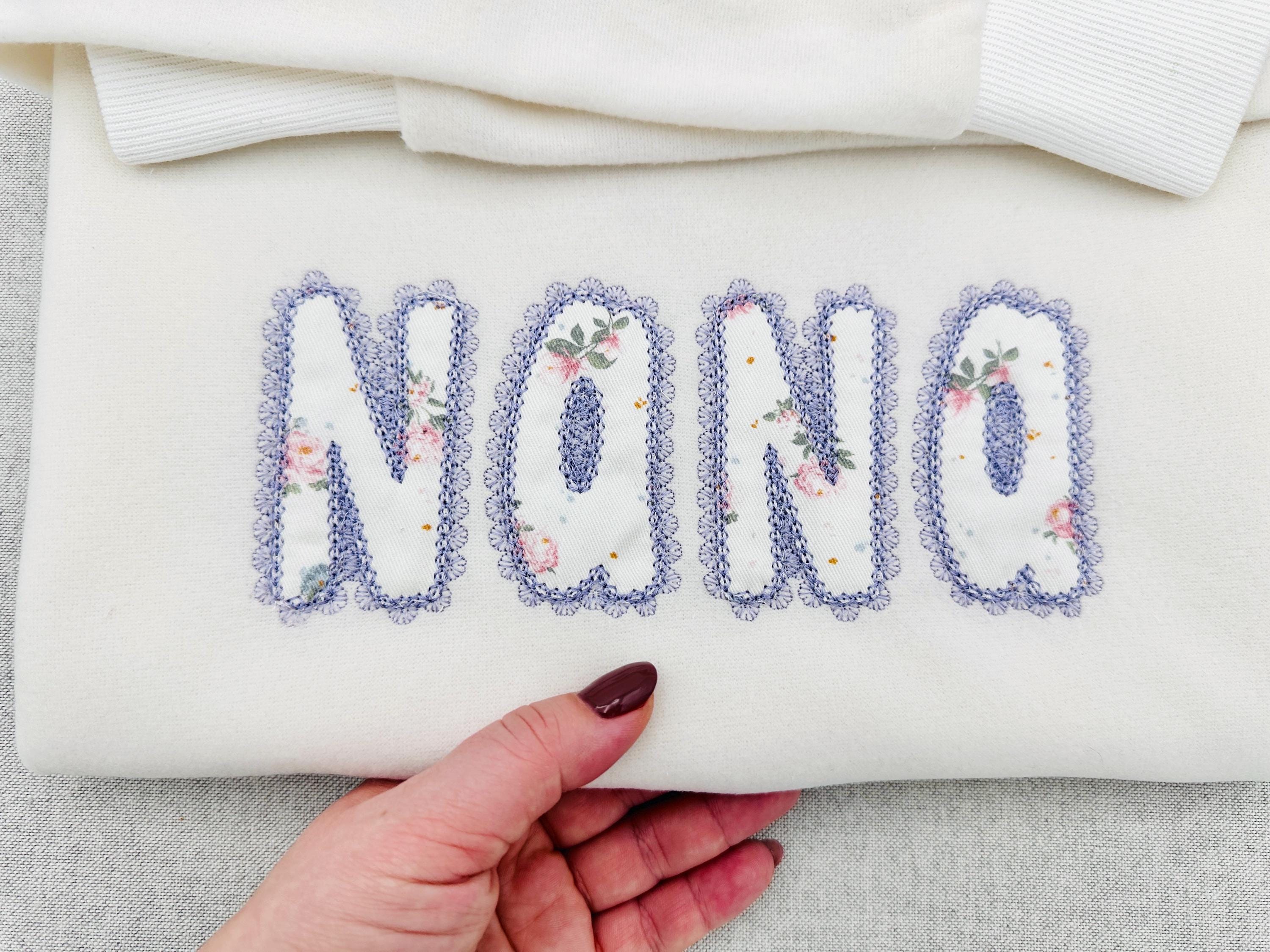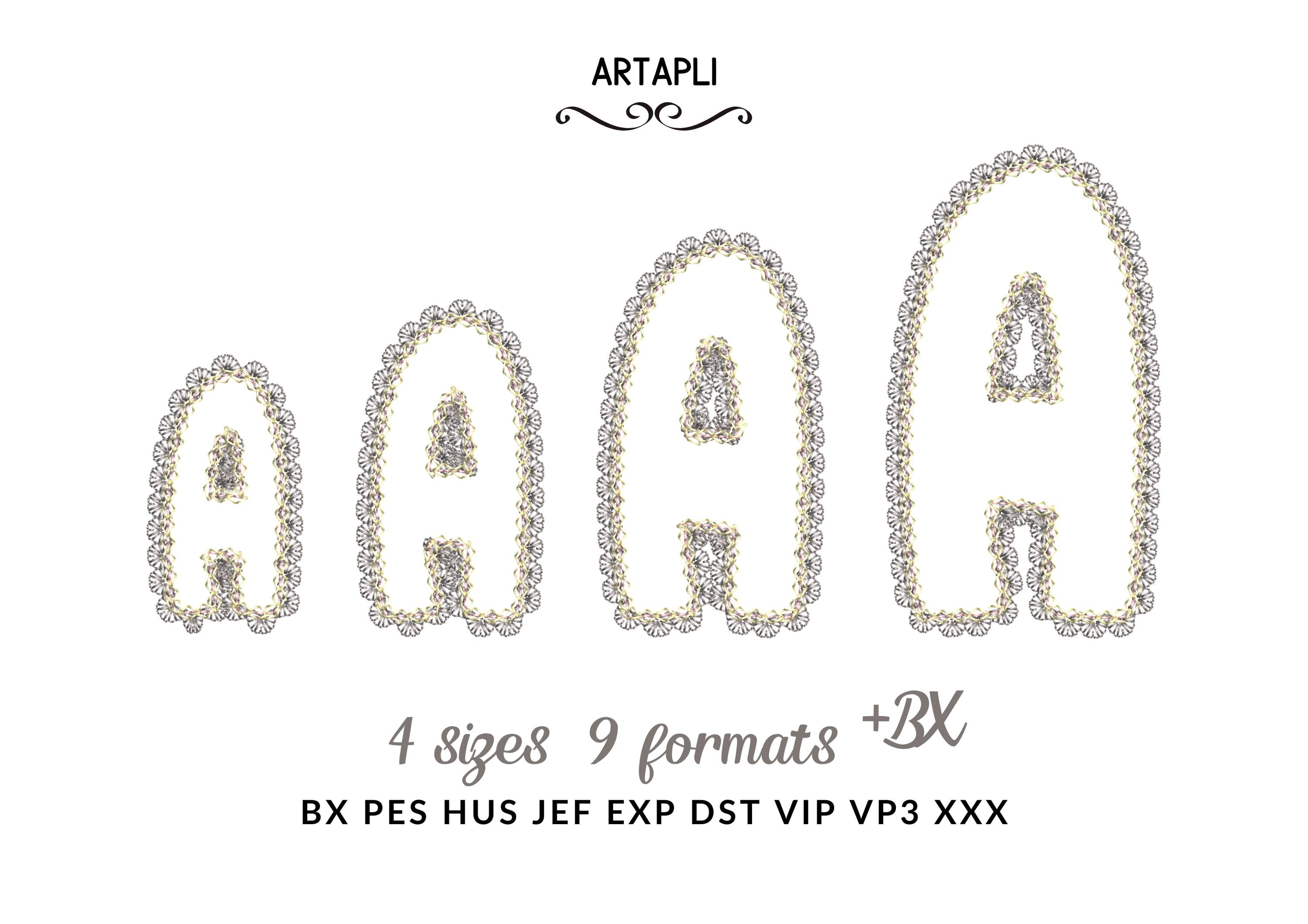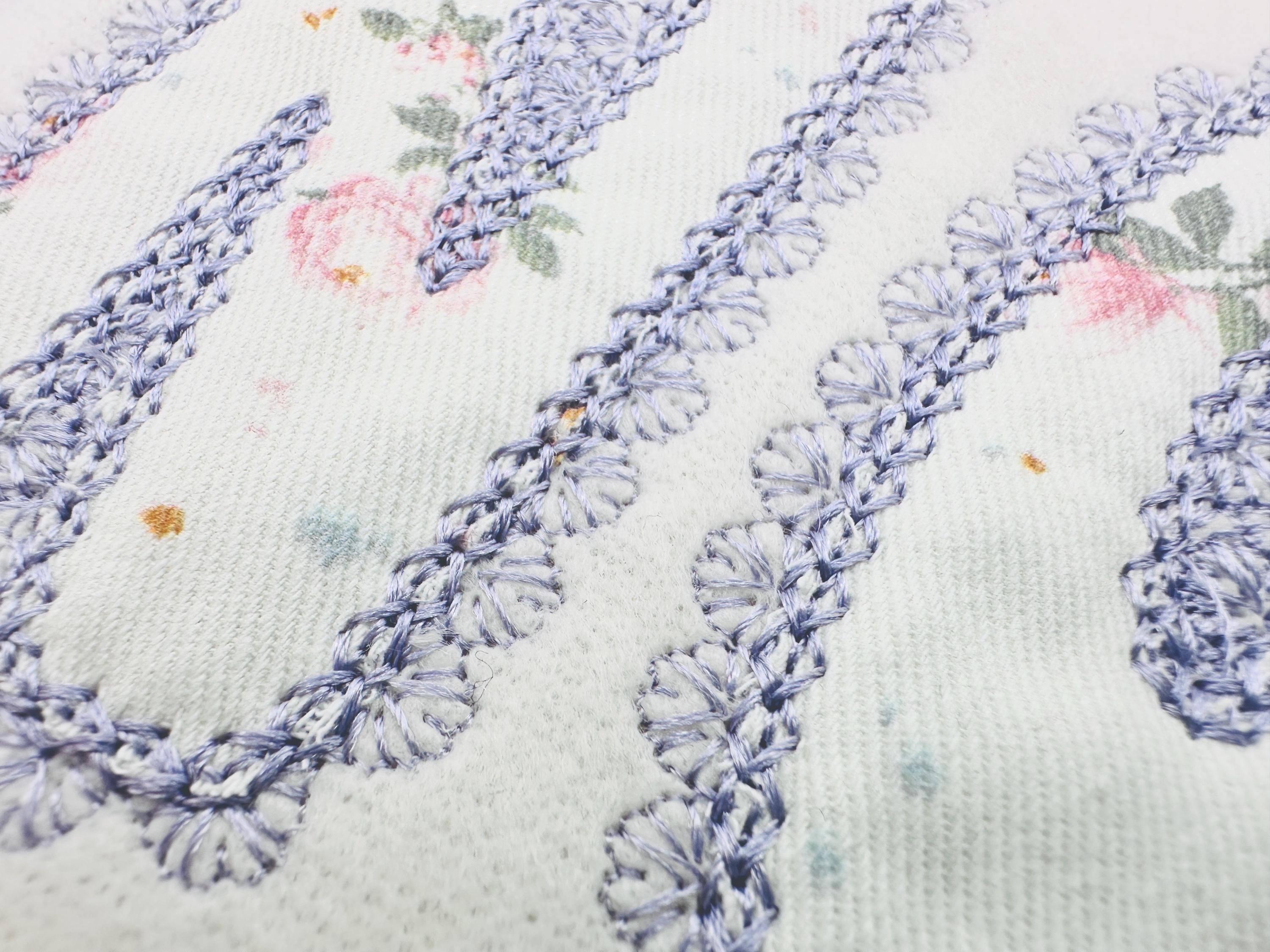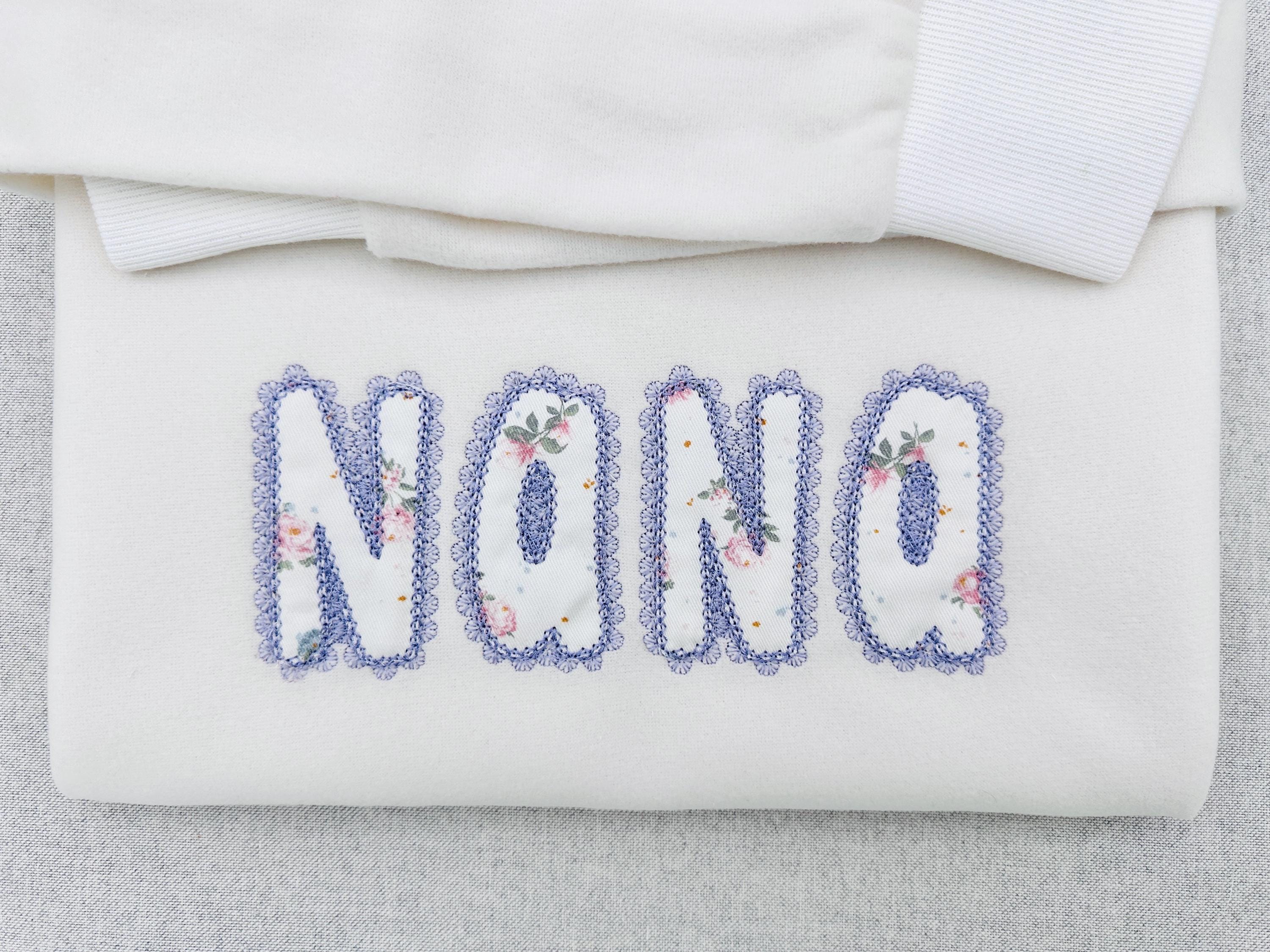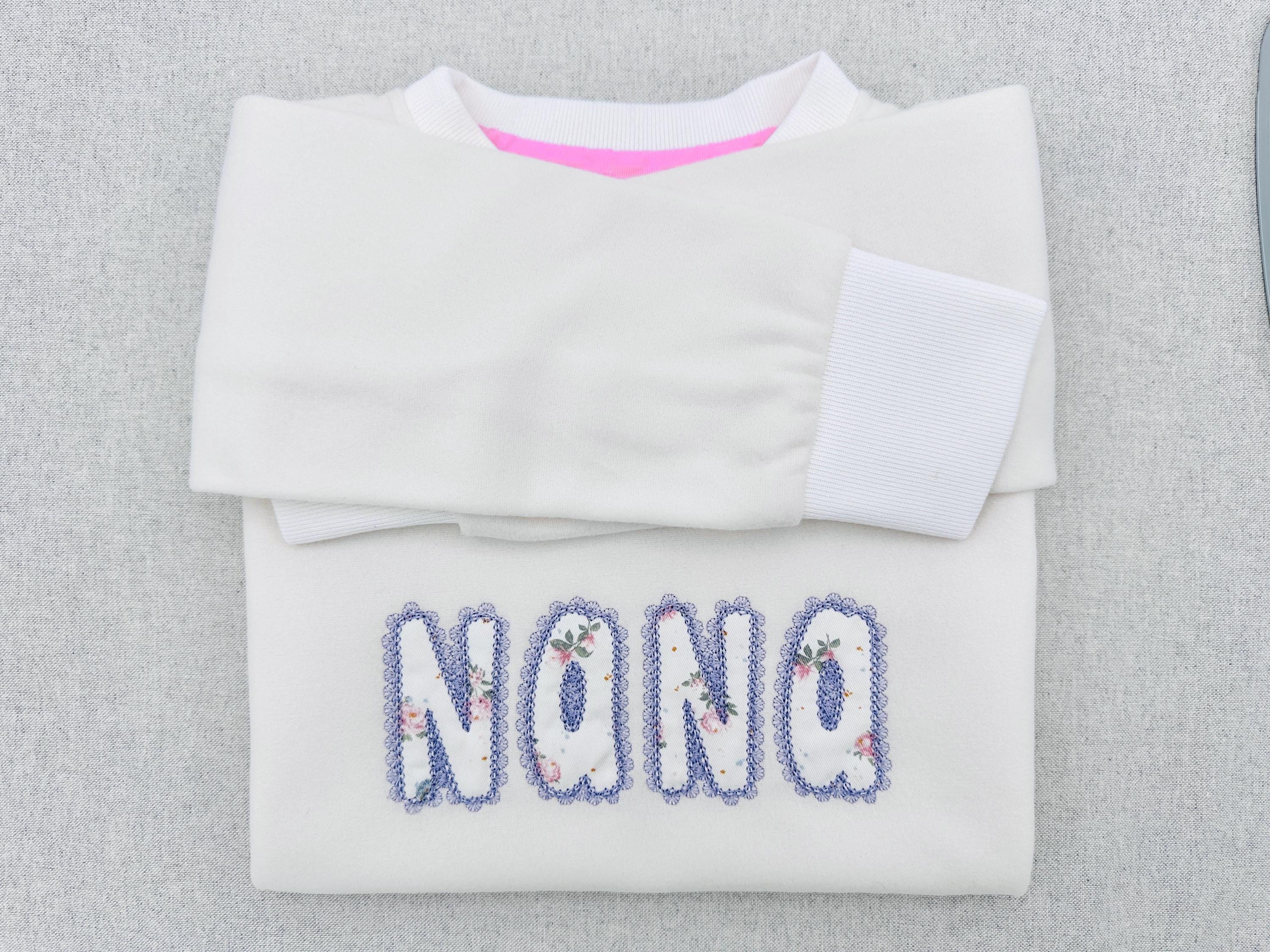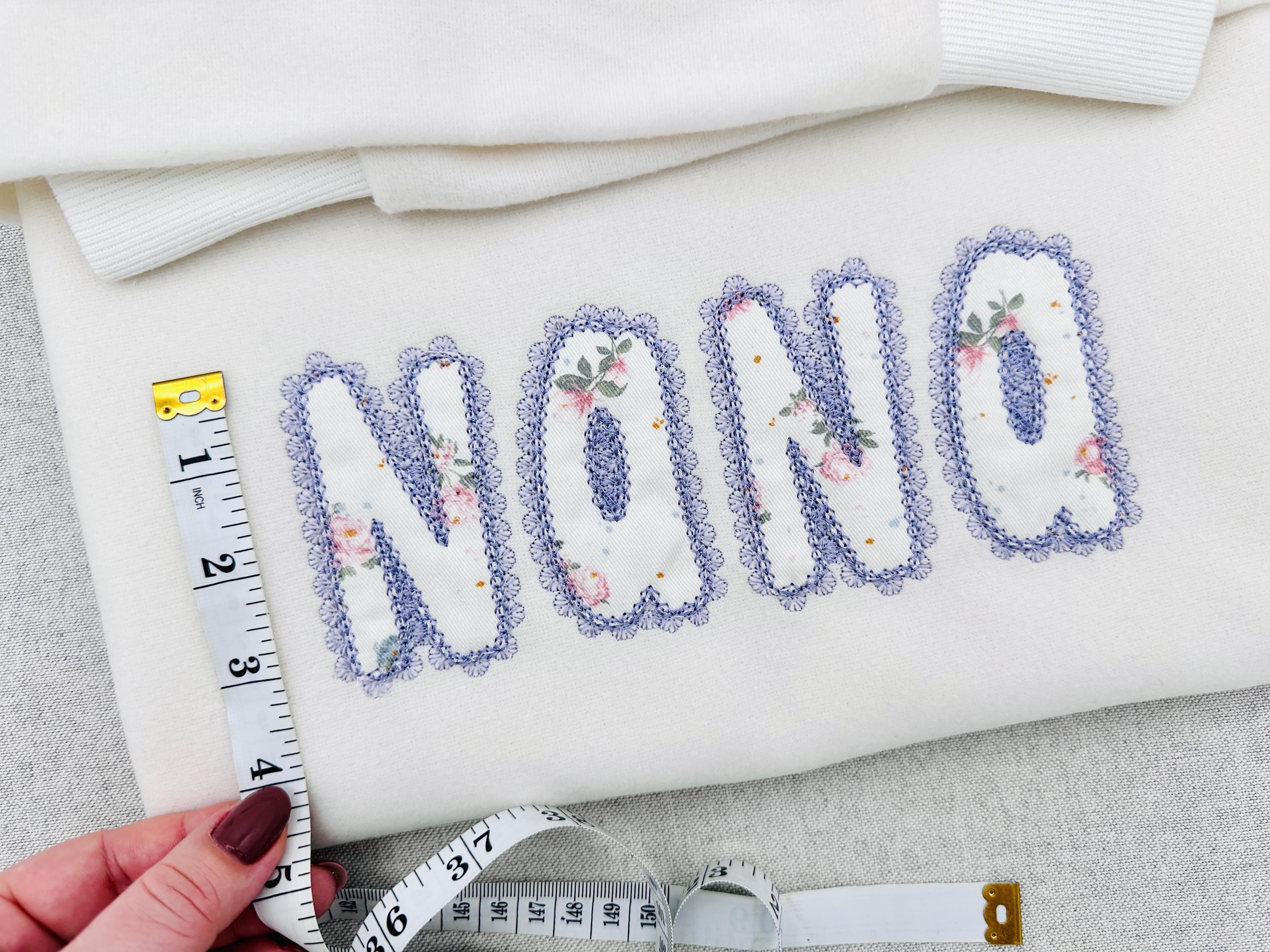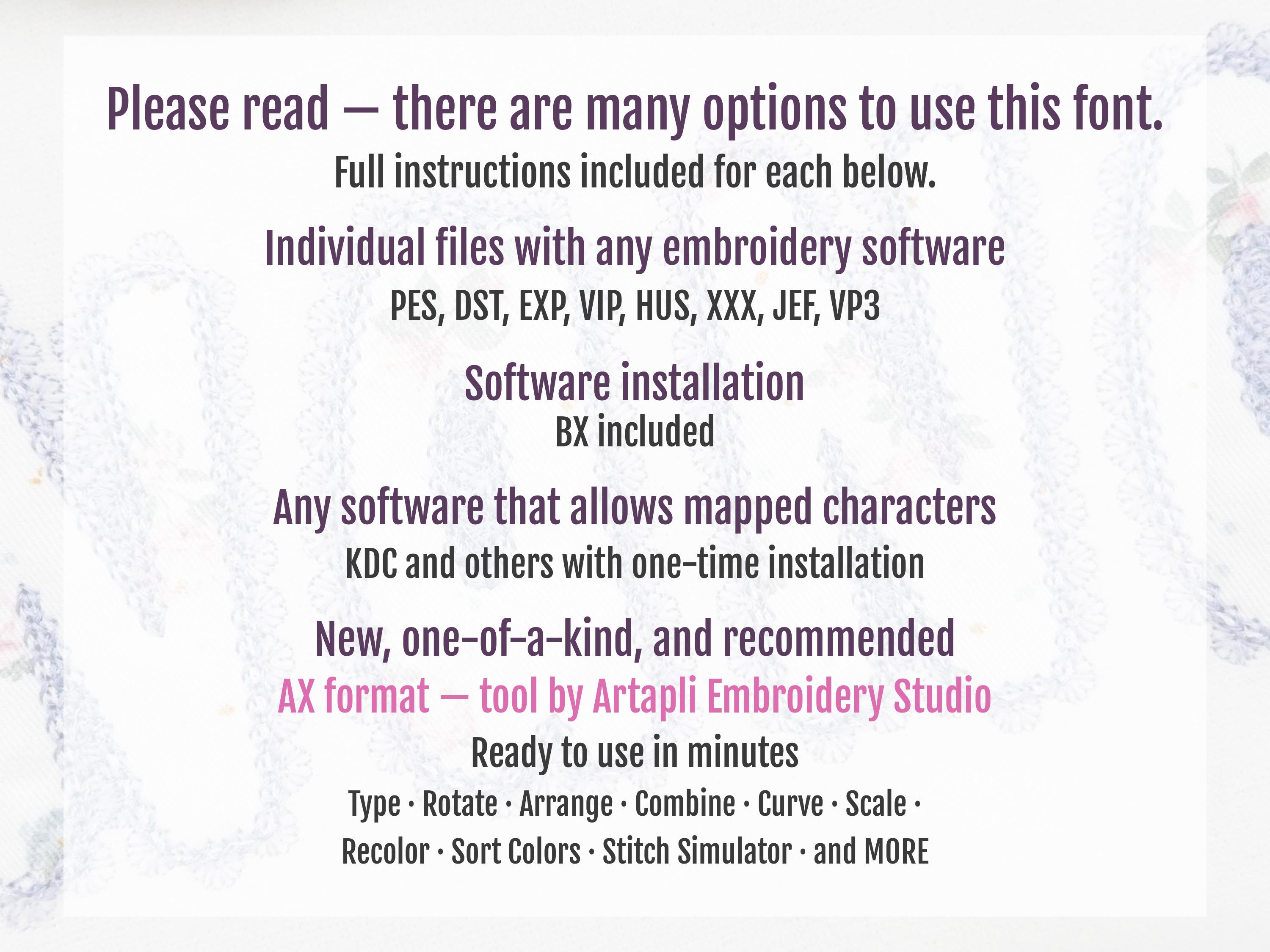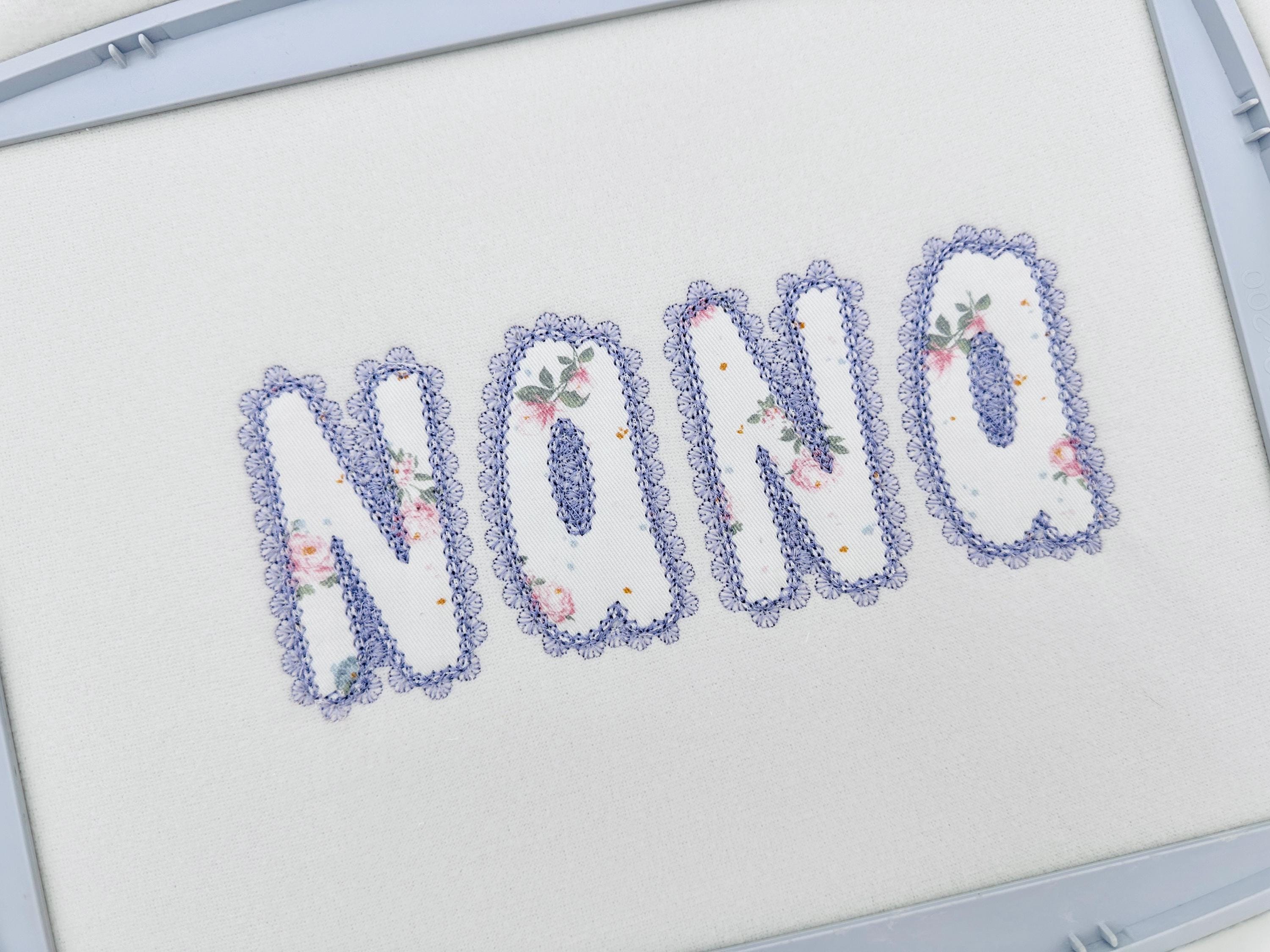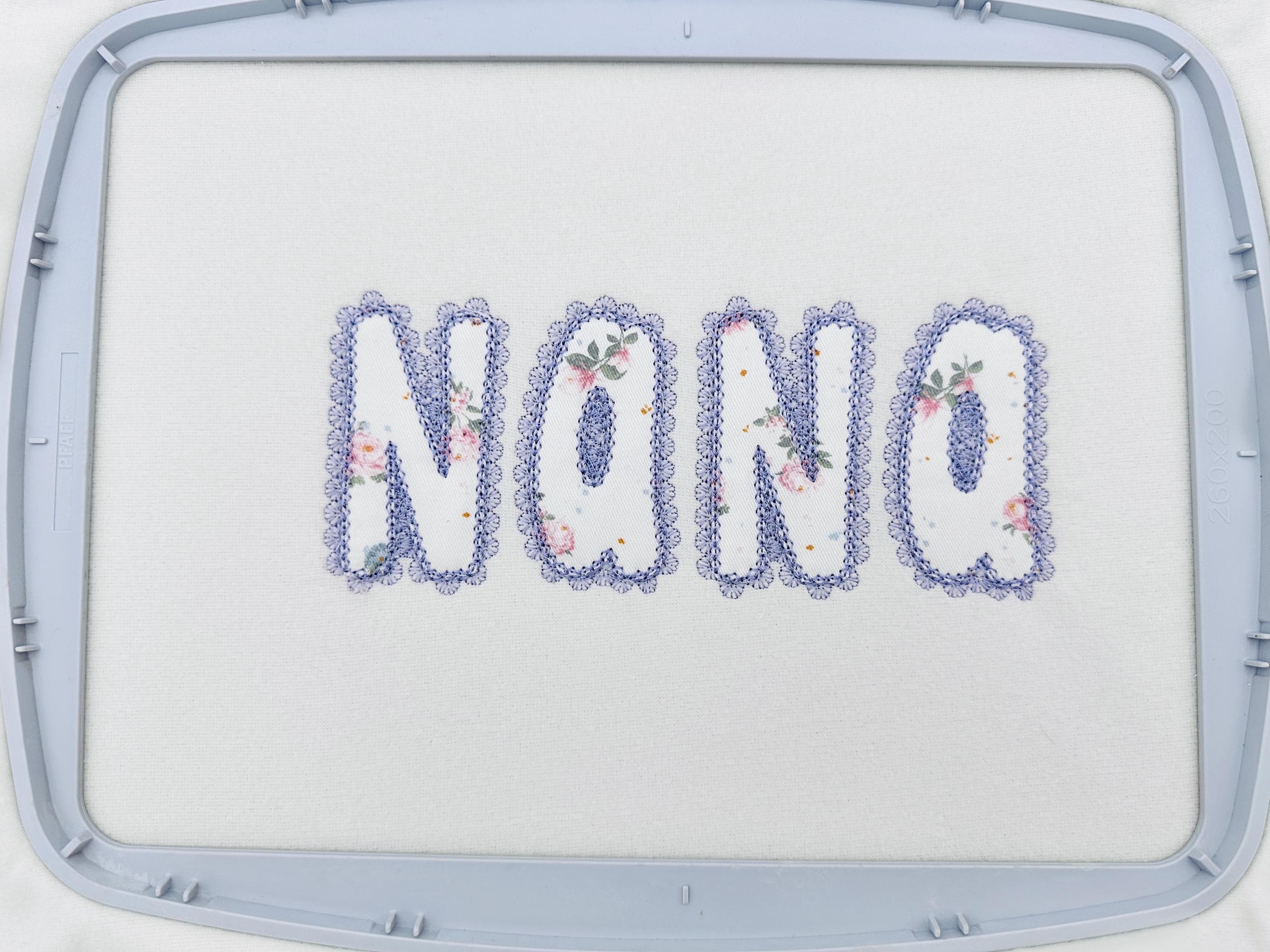
Lace Edge applique Alphabet Font lace trim effect letters, Monogram kids girls machine embroidery designs sizes 2.5 up to 4.3 in BX
Lace edge is a part of the design. The background fabric looks through. Stunning effect!